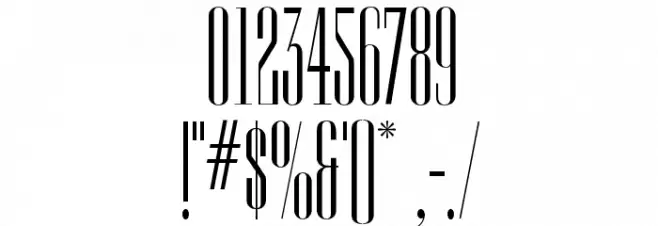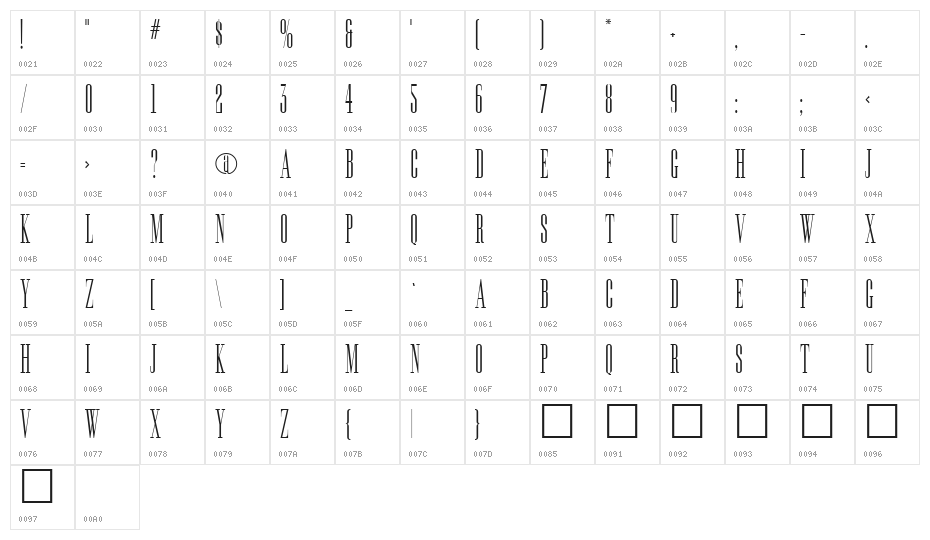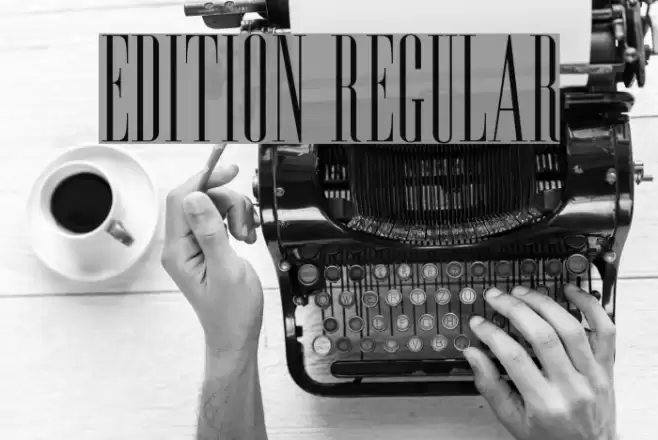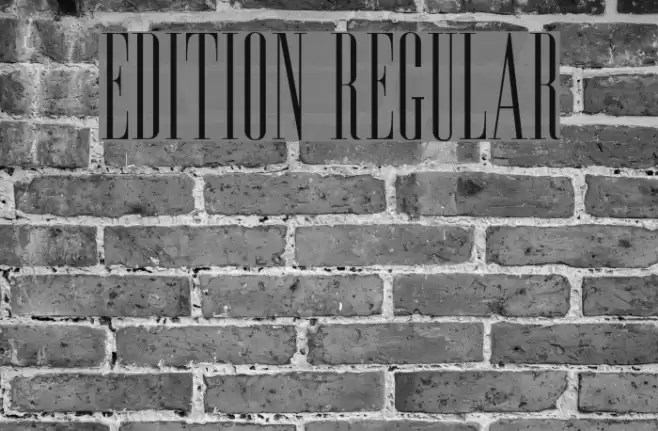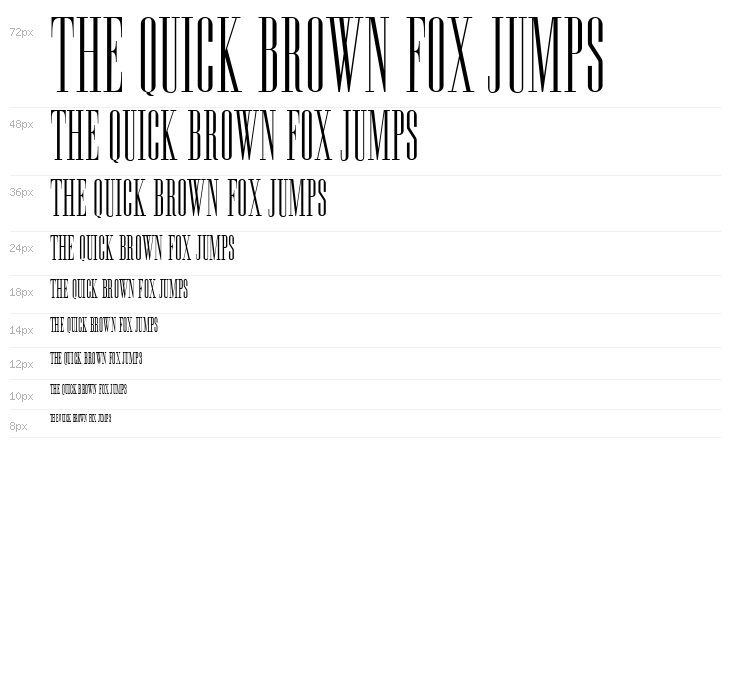
Edition Regular Font
Edition Regular Description
This font features a tall, narrow design with high contrast between thick and thin strokes, giving it an elegant and sophisticated appearance. The uppercase letters are particularly elongated, emphasizing verticality and creating a striking visual impact. The lowercase letters maintain a similar style, ensuring consistency across text. The numerals and special characters are designed to match the overall aesthetic, with the same high contrast and narrow proportions. This font is well-suited for projects that require a refined and stylish look, such as fashion magazines, luxury branding, and editorial design.
Proposed ProjectsFashion magazines, luxury branding, editorial design, high-end product packaging.